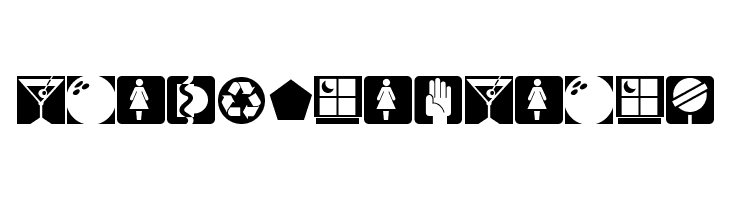
Qitt Chesta Regular Font
- Font: Qitt Chesta Regular
- No. of Characters:: 227
( Fonts by www.theboutons.com - Gary David Bouton )
A bold, geometric collection of symbols and shapes within squares.